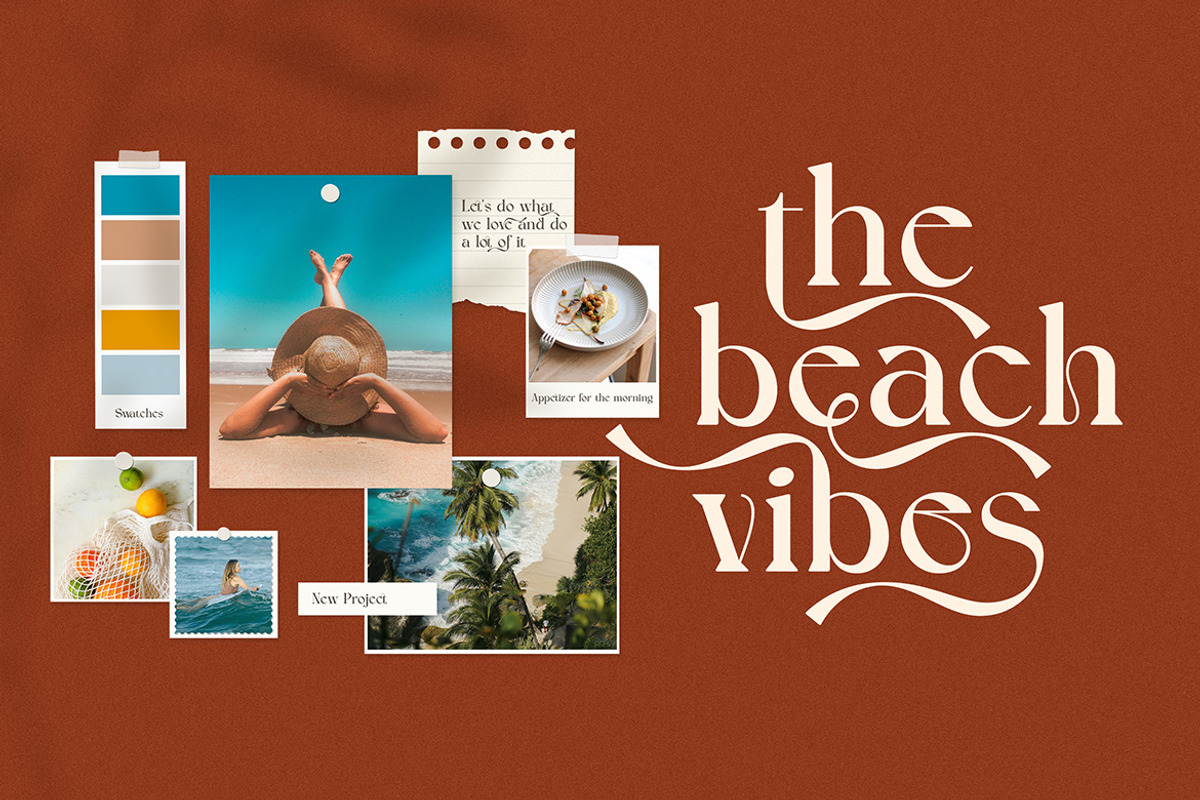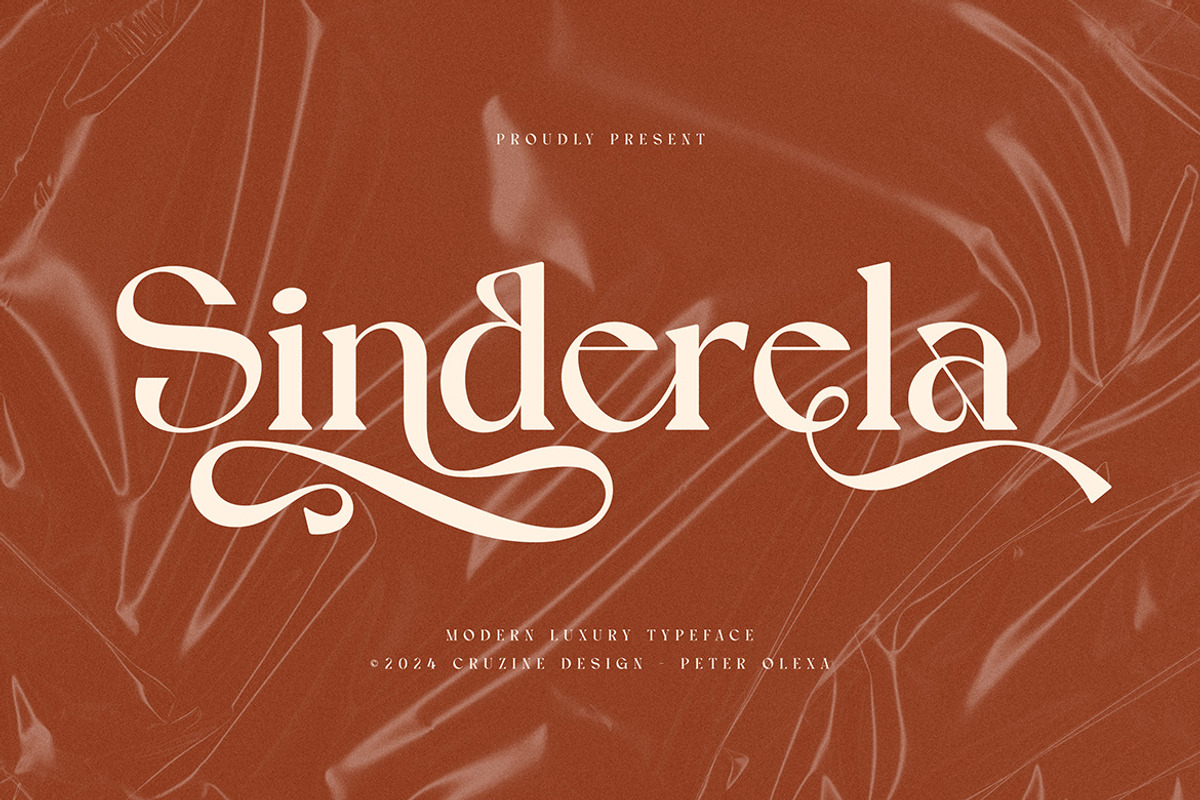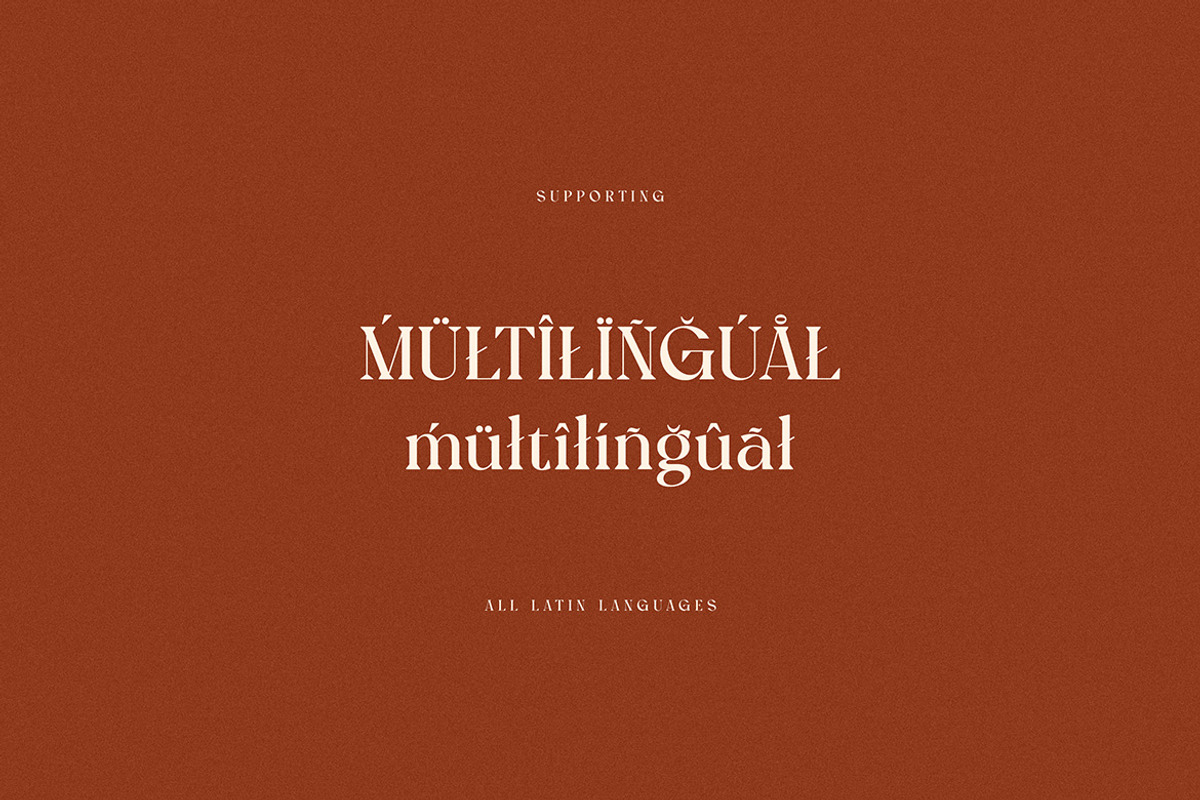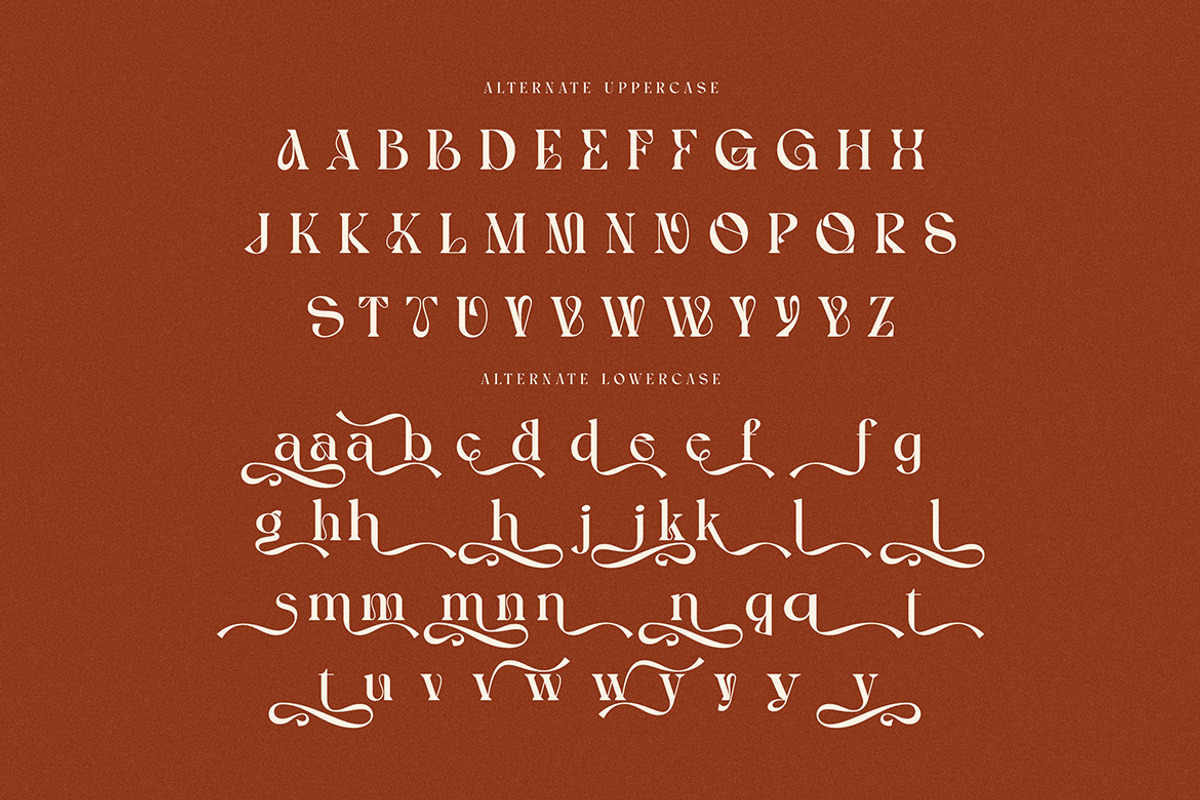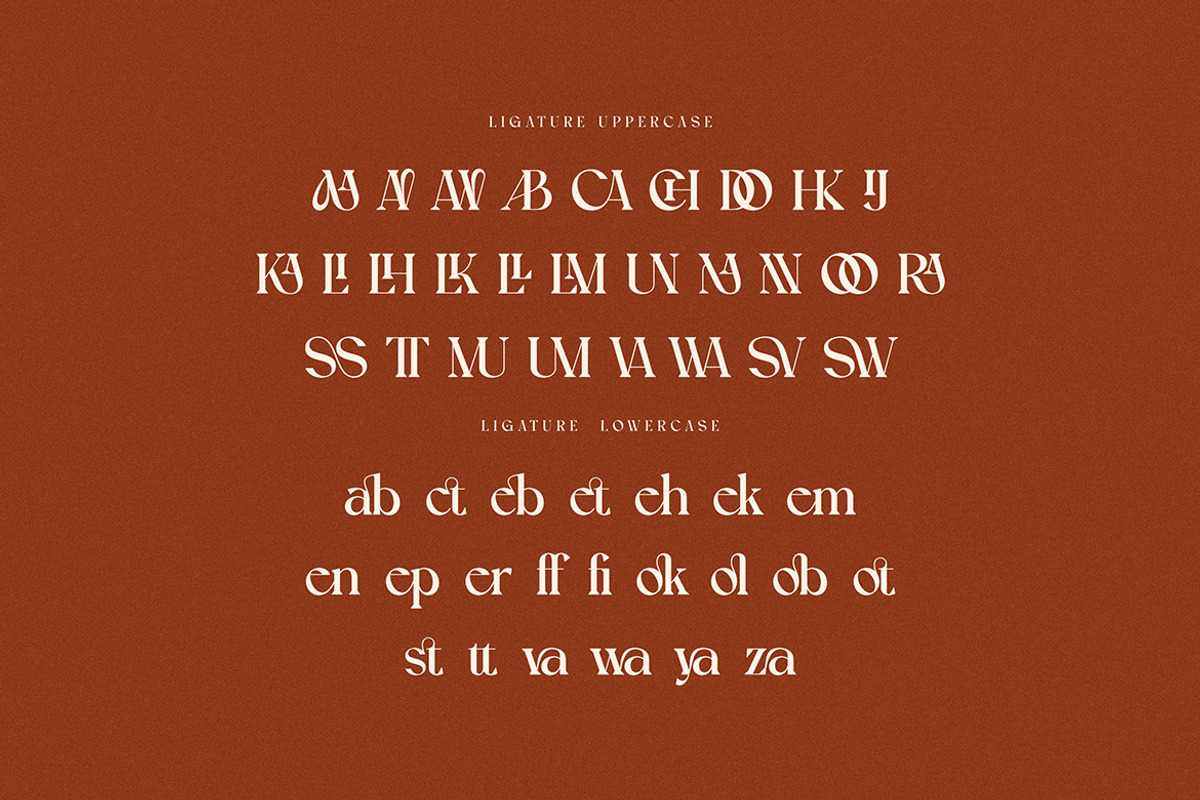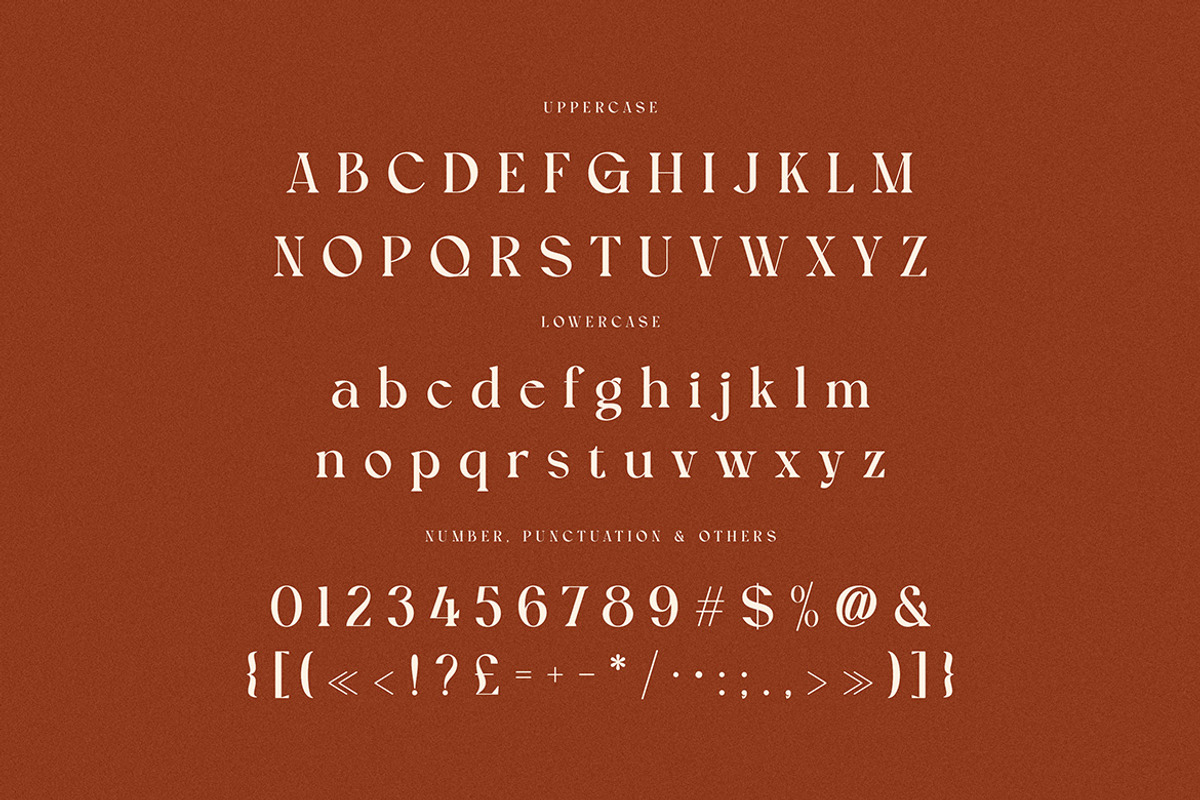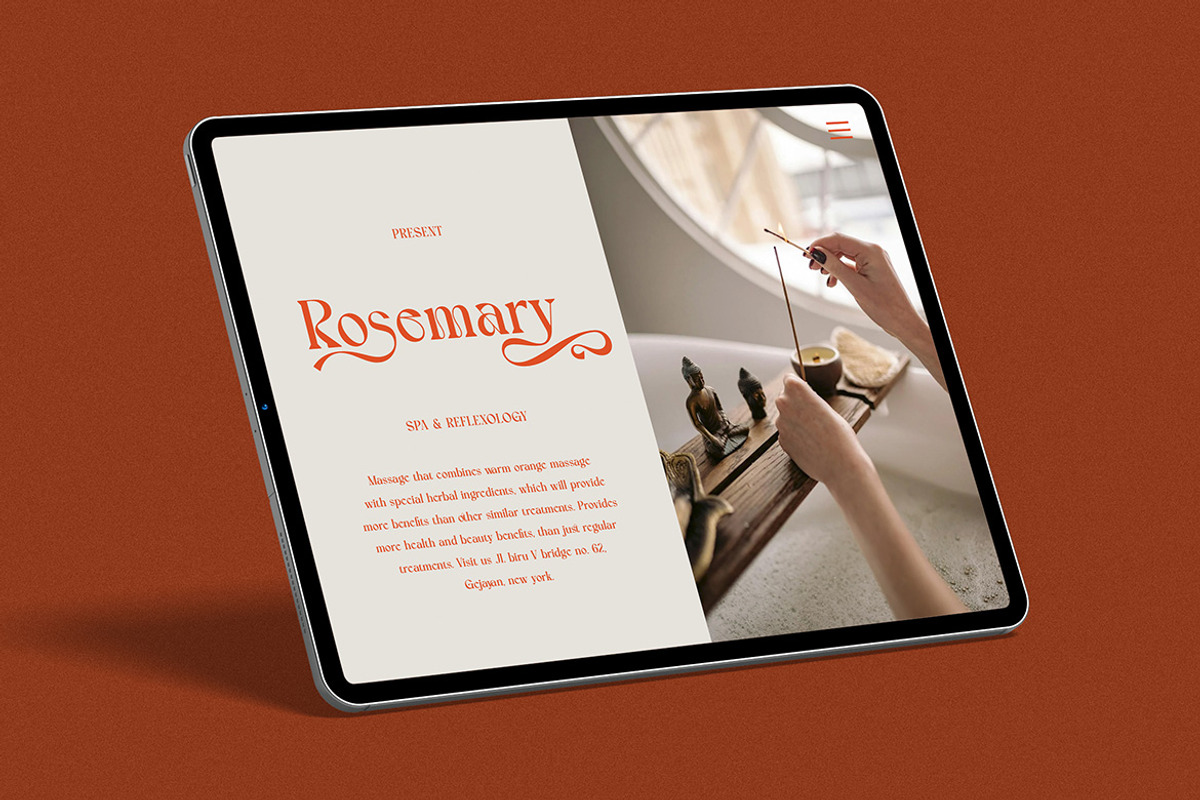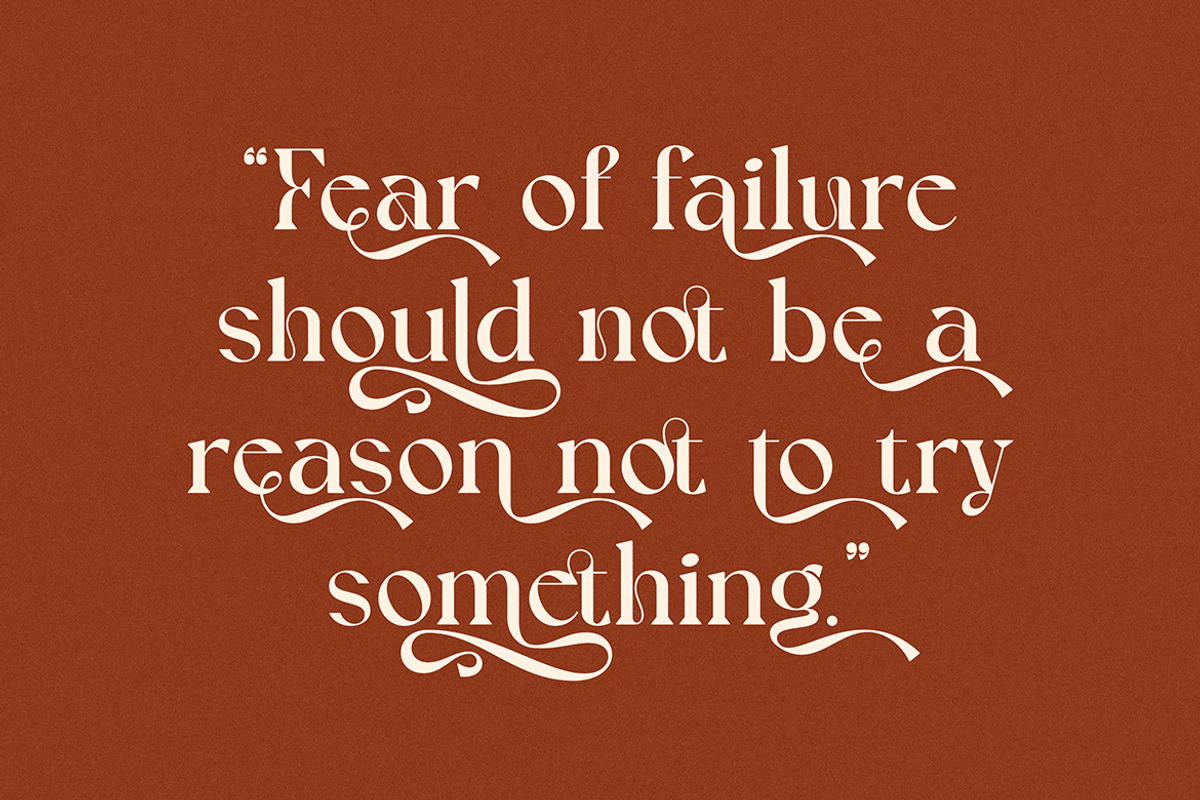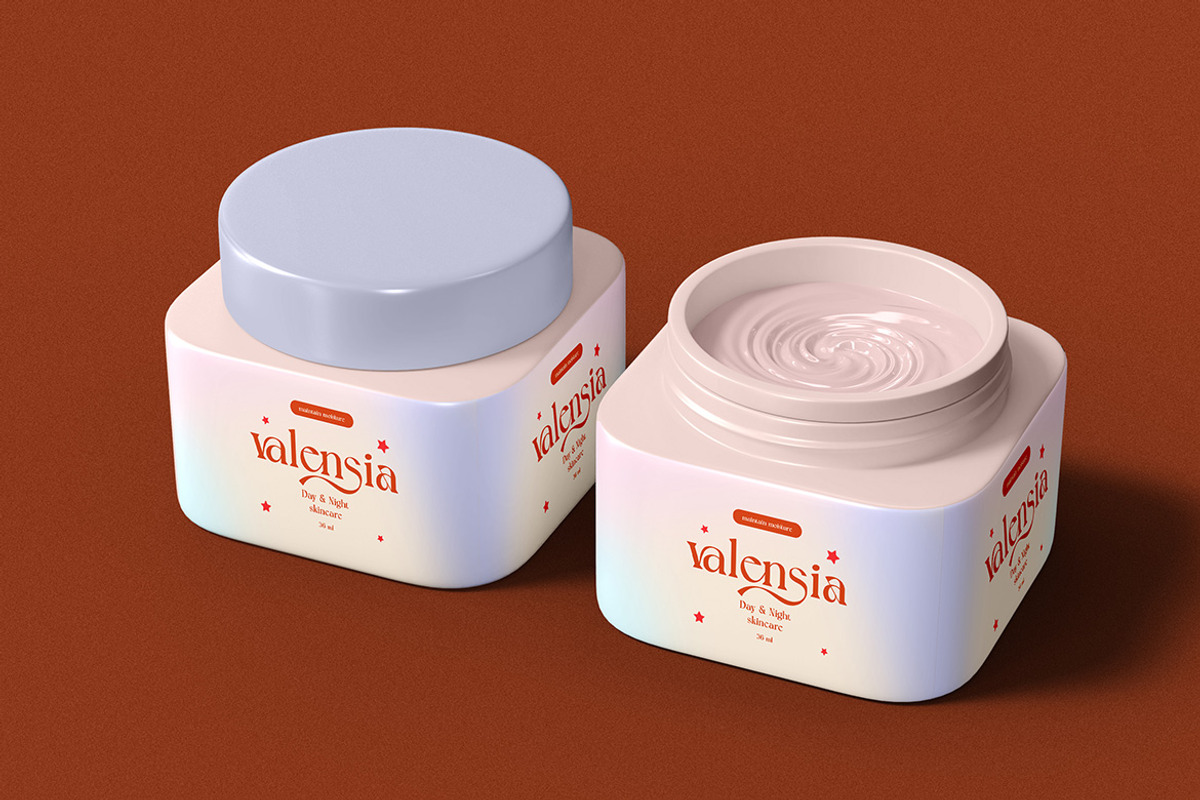
Sinderela Luxury Serif
Trendy, elegant, luxury, creative, sharp & modern style serif font for your new fancy projects. Stylish, romantic and classic style on Sinderela font will be great for any modern or classy branding project. Lot of alternates and ligatures will help you to create unique and original logo design or website header! Enjoy :)
- Alternate characters & lot of ligatures
- Great for modern branding projects!